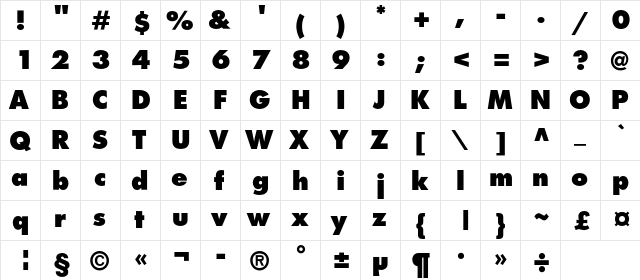
FavoritExtraBoldC Regular
Design Context for FavoritExtraBoldC Typeface
FavoritExtraBoldC offers clean, dependable letterforms without strong stylistic allegiance, making it a practical choice for designers who need flexibility. The heavy weight commands attention and anchors typographic hierarchies.